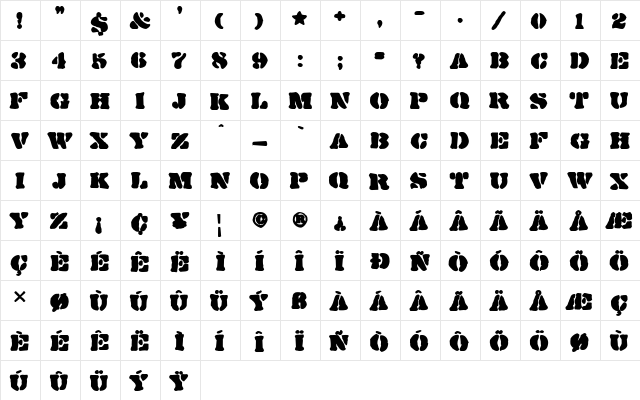
DirtyBakersDozen Ink Regular
Design Context for DirtyBakersDozen Ink Typeface
DirtyBakersDozen Ink is a composed and adaptable typeface that performs quietly and consistently across a wide range of design contexts.